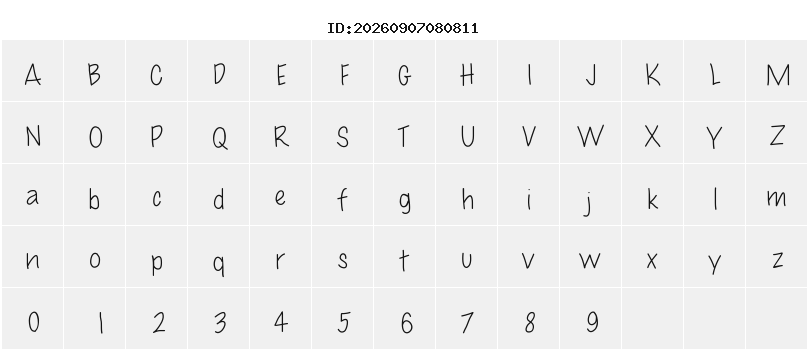
• Font Name: Uno
• Full Font Name: Uno
About Uno.ttf
Uno.ttf is a modern, elegant sans-serif font designed for ultimate readability and visual harmony. Perfect for branding, headlines, web design, and print materials.